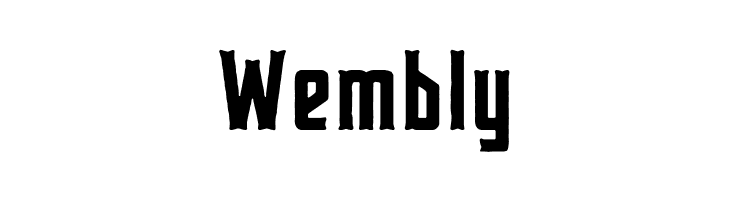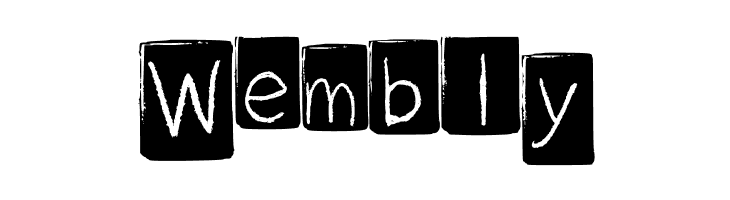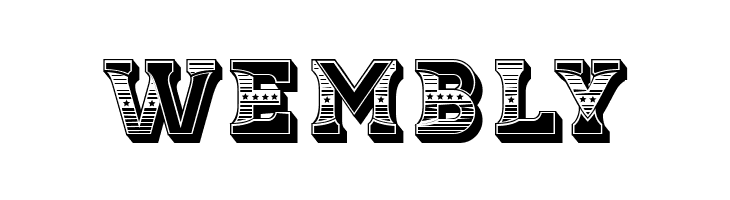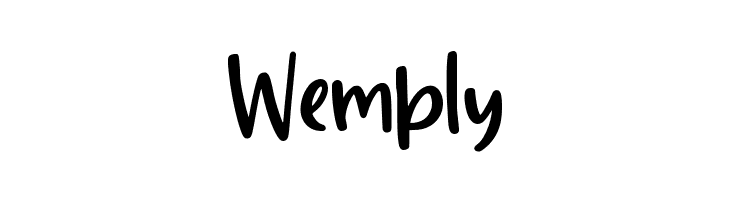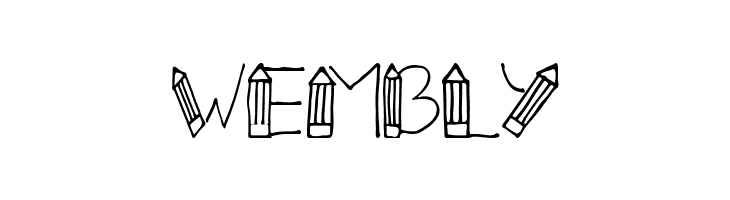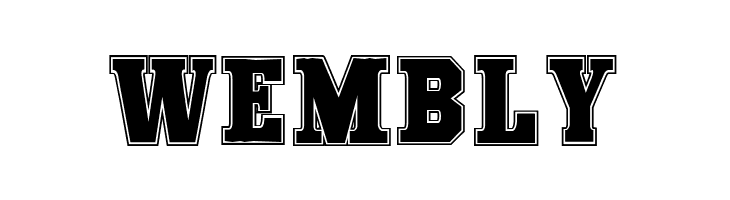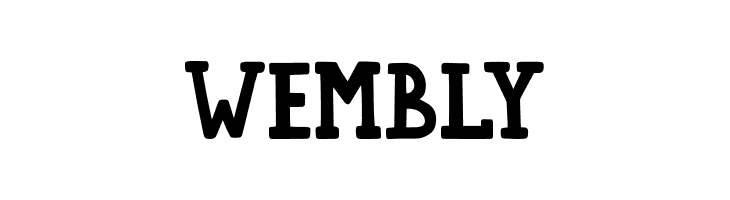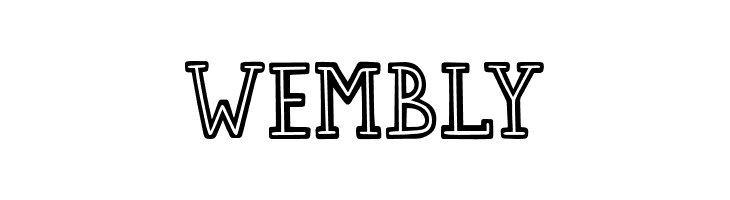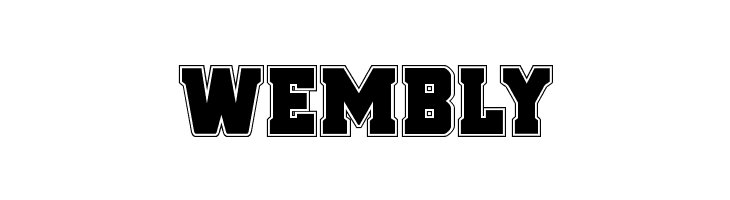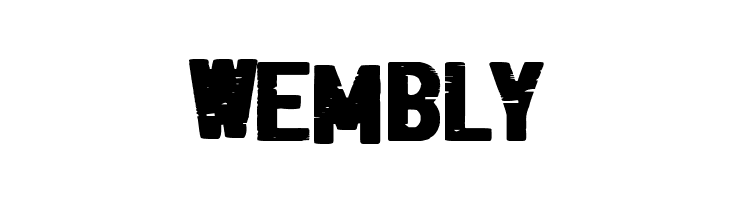
A bold, vintage typewriter-style font with slab serifs and strong, uniform strokes.
A bold, contour-outlined font with a collegiate, varsity style.
A playful font with letters styled as pencils, ideal for educational themes.
A retro, pixelated monospaced font with a digital, vintage aesthetic.
A bold, decorative font with a vintage, dotted texture.
A bold, distressed font with a grungy, vintage appearance.
A bold, decorative font with a 3D effect and dotted interior pattern.
A bold, vintage-style font with a strong, blocky design.
A vintage, typewriter-style font with textured, irregular edges.
A playful, hand-drawn font with a chalkboard style, enclosed in squares.
A bold, vintage-style font with a three-dimensional effect and decorative elements.
A playful, hand-drawn font with a chalk-like, informal style.
A playful font with characters designed to resemble pencils, perfect for educational themes.
A bold, collegiate-style font with a three-dimensional shadow effect.
Bold, collegiate-style font with strong, blocky characters.
Bold, outlined collegiate style ideal for impactful designs.
A bold, outlined font with a strong, collegiate style.
A religious-themed dingbat font with Bible and Christian iconography.
A bold, distressed font with a rugged, vintage appearance.
A bold, retro-inspired font with a three-dimensional effect and vintage appeal.
A bold, outlined font with a collegiate, three-dimensional style.
A bold, decorative font with a vintage, three-dimensional style.
A bold, decorative font with vintage flair and intricate patterns.
A bold, retro-style font with 3D effects and rounded square enclosures.
A bold, 3D font with a strong, collegiate style.
A bold, decorative font with a vintage, three-dimensional style.
A bold, collegiate-style font with strong, angular lines and a three-dimensional outline.
A bold, textured font with a vintage, distressed style.
A bold, outlined collegiate-style font with expanded width and strong visual impact.
A bold, athletic font with a classic varsity style.
A bold, vintage-style font with decorative shadow effects.
A digital-inspired font with segmented, geometric characters.
Line-art icon font with religious and spiritual motifs.
A bold, rough-textured font with a vintage, handcrafted appearance.
A vintage typewriter-style font with a warm, nostalgic feel.